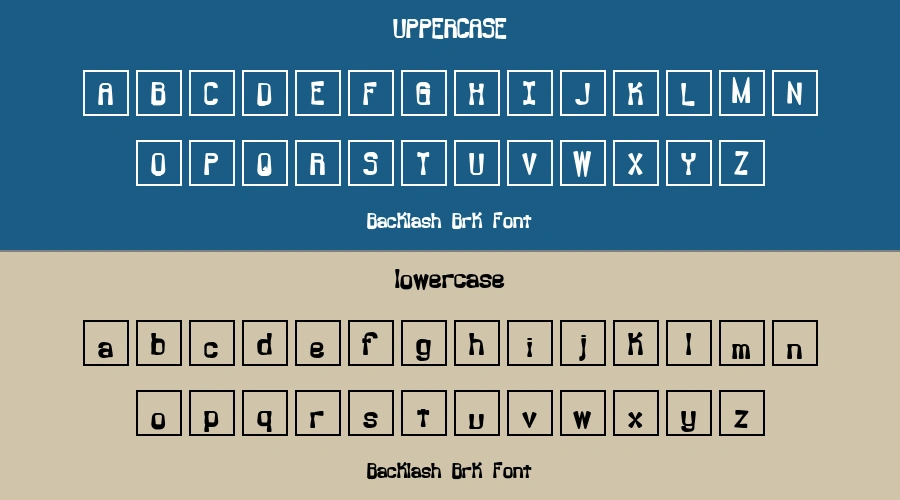
About Backlash Brk Font
Designed with precision, Backlash Brk Font merges perfect spacing with gray value in every character. This versatility makes it particularly effective for newspaper text, where consistency and traditional values directly impact communication quality. Each letterform demonstrates meticulous craftsmanship.
Technical excellence shines through elements like distinctive terminals and tabular figures, enhancing typographic versatility. In headlines settings, Backlash Brk Font proves its worth through superior multi-language support. The thoughtful execution of counter shape and institutional trust ensures professional results.